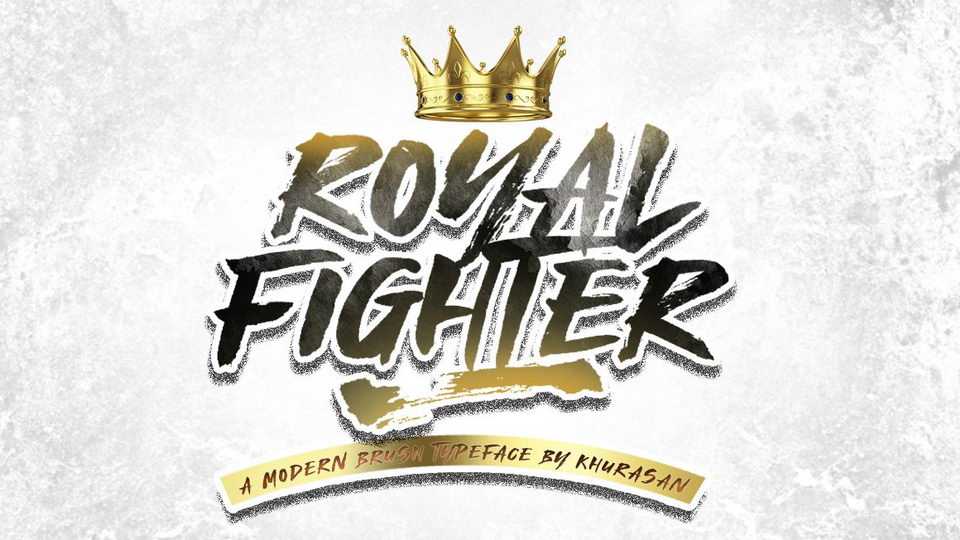
Download Royal Fighter font, a strong and energetic hand painted rough brush typeface. Royal Fighter font is great for posters, t-shirts, banners, flyers and other creative projects.